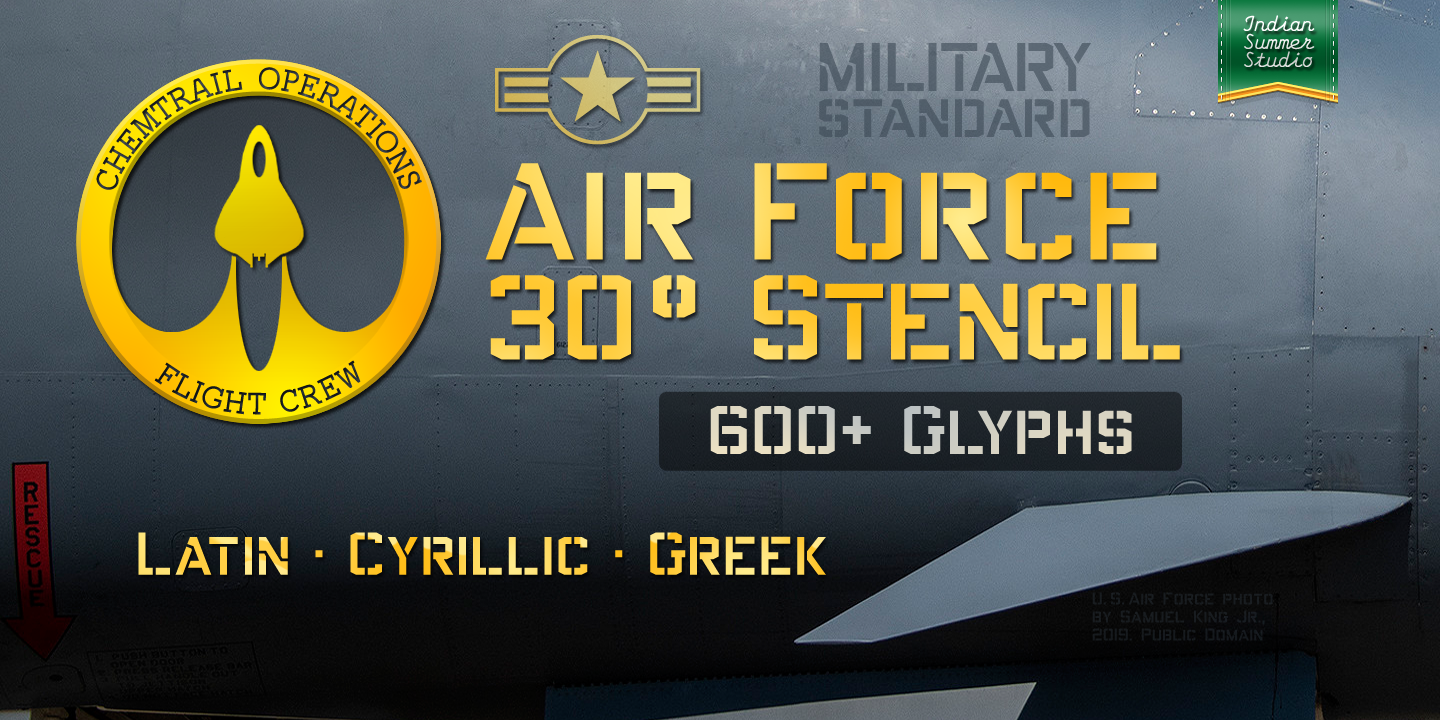
Air Force 30 Stencil Font is perfect for military aviation branding, aerospace company materials, flight training school signage, aircraft maintenance documentation, pilot gear packaging, aviation museum displays, air show promotional graphics, military contractor communications, tactical aviation equipment labels, and authentic airborne operations marketing.
What makes Air Force 30 Stencil Font so exciting is its extraordinary ability to embody the precision, discipline, and sky-high excellence of military aviation through boldly stenciled letterforms that seem spray-painted onto fighter jets and stamped into mission-critical aircraft equipment that must perform flawlessly at 30,000 feet above ground. This font captures the essence of aerial supremacy and aviator expertise, featuring razor-sharp characters that appear designed for rapid identification on flight lines and instant recognition in high-altitude combat situations. The authoritative letter shapes create an atmosphere of tactical superiority and unwavering professionalism, making every word feel like it carries the weight of national defense and the honor of those who serve in the world's most elite aviation forces.
The Air Force 30 Stencil Font family includes Light, Regular, Bold, Heavy, and Weathered variations, along with tactical markings and aviation-specific symbols. Each style maintains the font's distinctive military aviation character while offering versatility for different aerospace applications, from subtle technical documentation to commanding operational headlines that communicate mission-critical information with absolute clarity and authority.
This commanding typeface brings authentic military aviation aesthetics to contemporary design projects. The Air Force 30 Stencil Font Free Download provides designers with an exceptional tool to create memorable brand identities that communicate precision, excellence, and aerospace expertise. Whether you're developing aviation company branding, designing flight training materials, or creating military contractor communications, this font delivers unmatched authenticity and aviator credibility.
The precisely engineered letterforms in Air Force 30 Stencil Font feature bold stencil cuts and aerodynamic proportions that ensure maximum visibility under extreme flight conditions while expressing the technical excellence and operational readiness that define military aviation standards. Each character has been designed to withstand harsh aerospace environments while maintaining the distinctive stenciled appearance that immediately communicates tactical aviation authenticity. The font's flight-ready personality makes it ideal for applications requiring genuine military aviation authority and operational credibility.
Aviation industry professionals appreciate how Air Force 30 Stencil Font instantly establishes aerospace credibility and military aviation authenticity while appealing to audiences seeking genuine flight-tested quality and the kind of proven reliability that comes from equipment certified for the most demanding aerial missions. The comprehensive character set includes aviation symbols, tactical indicators, flight operation markings, and extensive international language support, ensuring global compatibility while maintaining its distinctive air force stencil identity. This makes it an invaluable resource for aerospace manufacturers, military contractors, flight training organizations, and any organization seeking typography that embodies the core aviation values of precision, excellence, courage, and the absolute commitment to safety and mission success that defines those who serve in the skies and protect freedom from above the clouds.